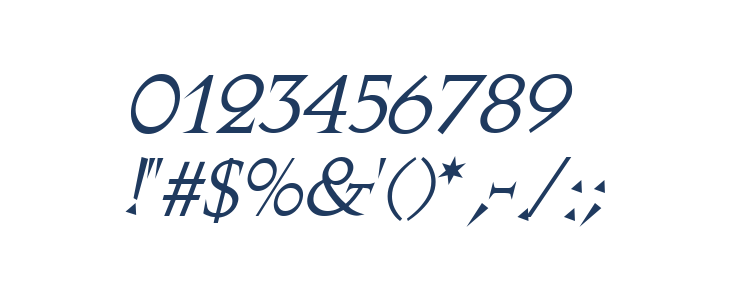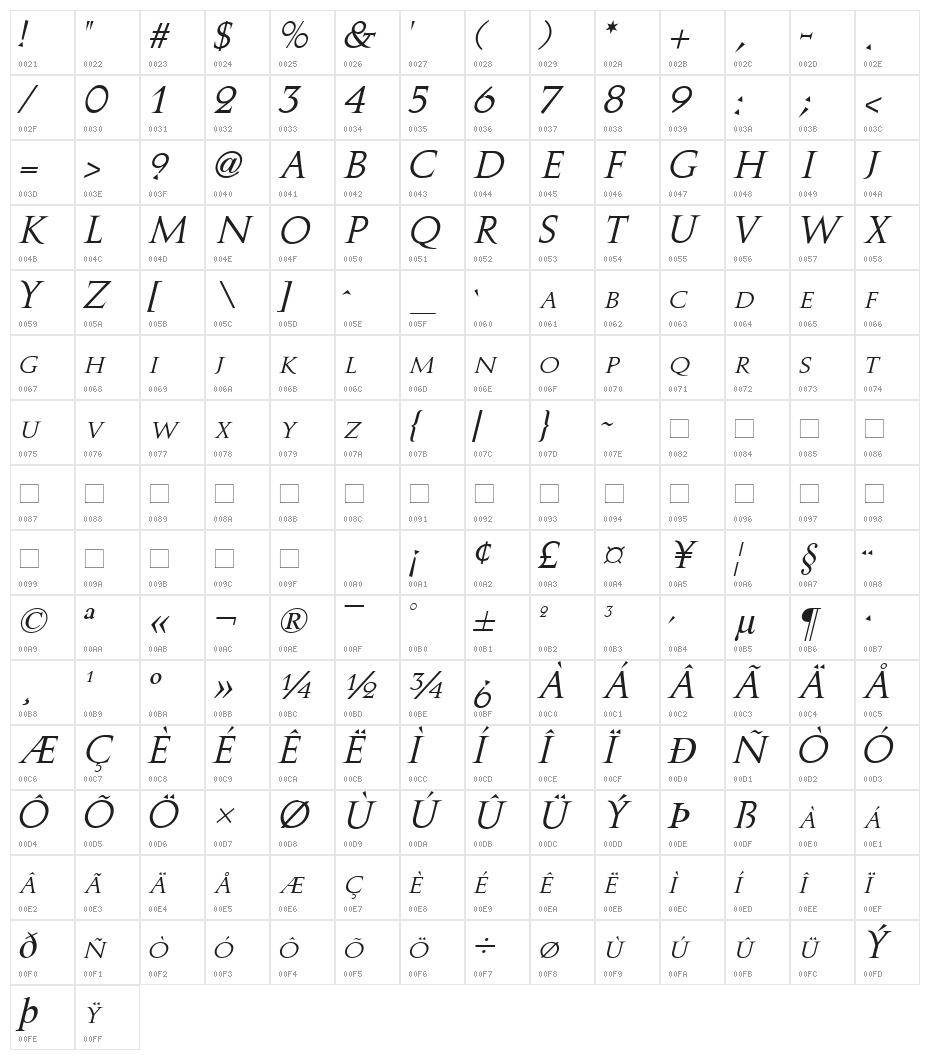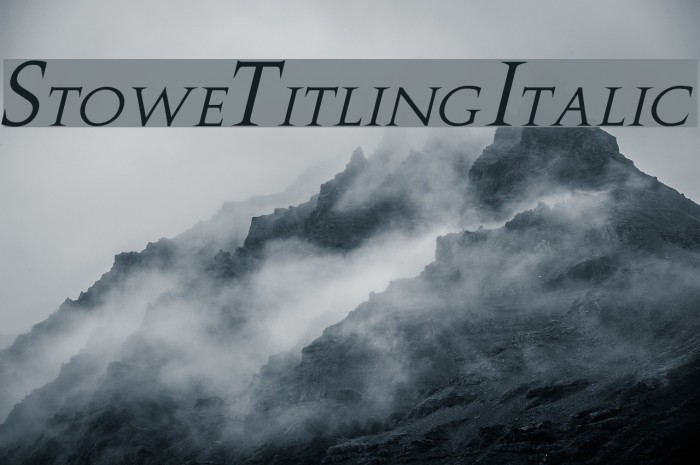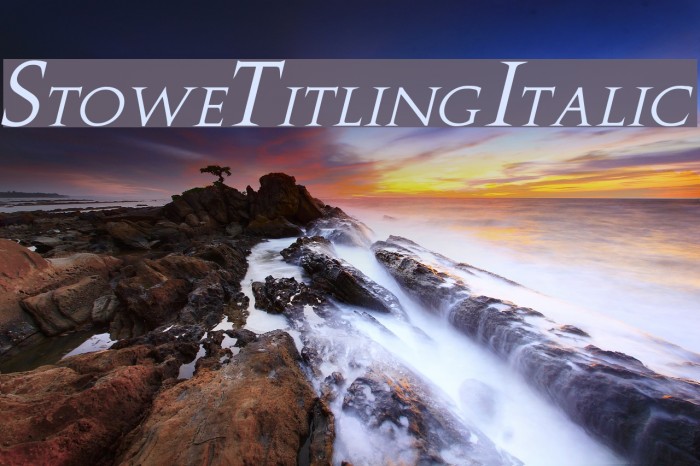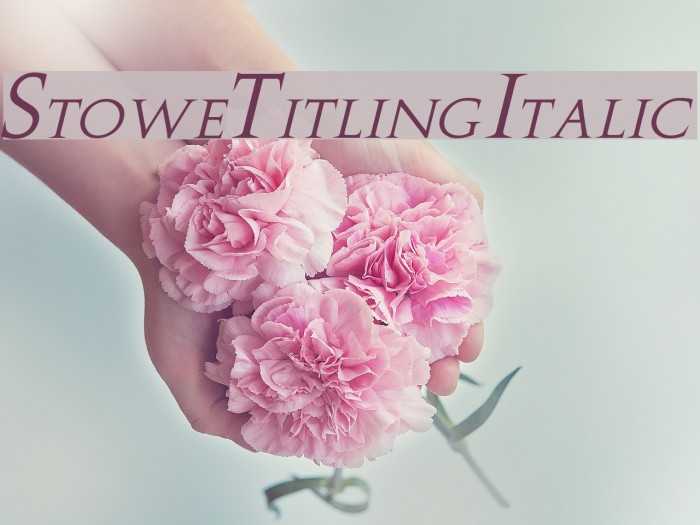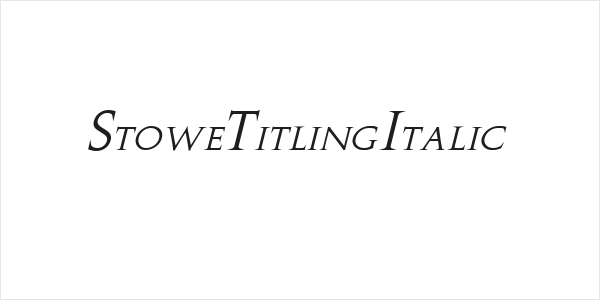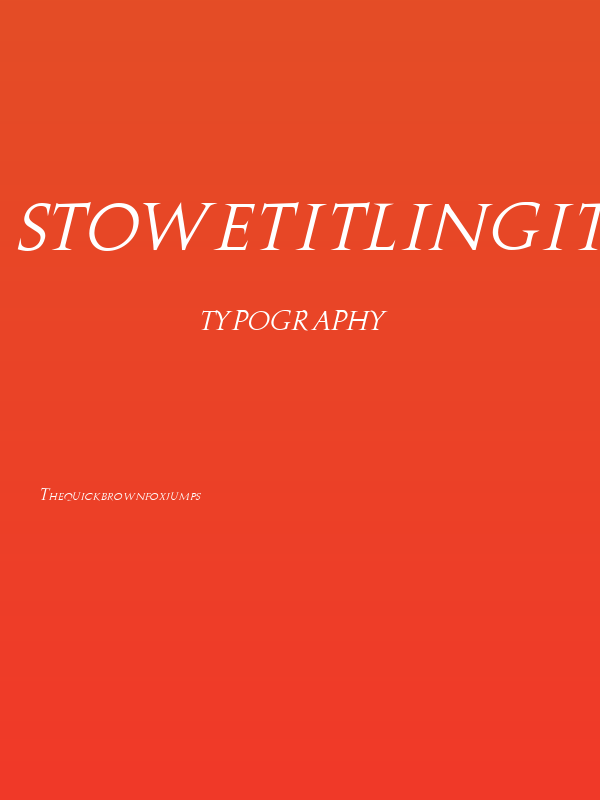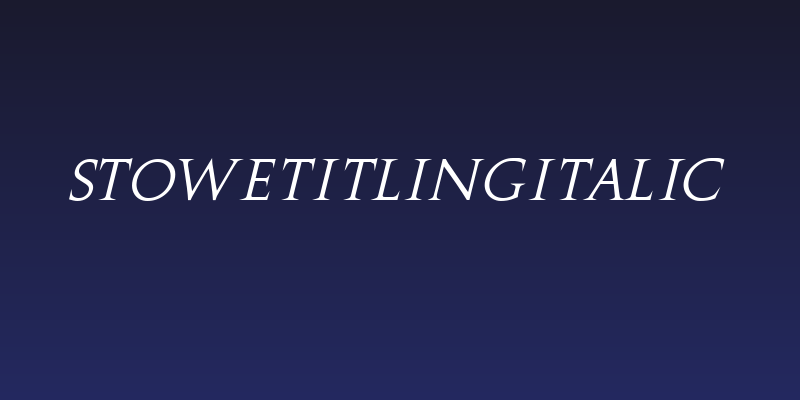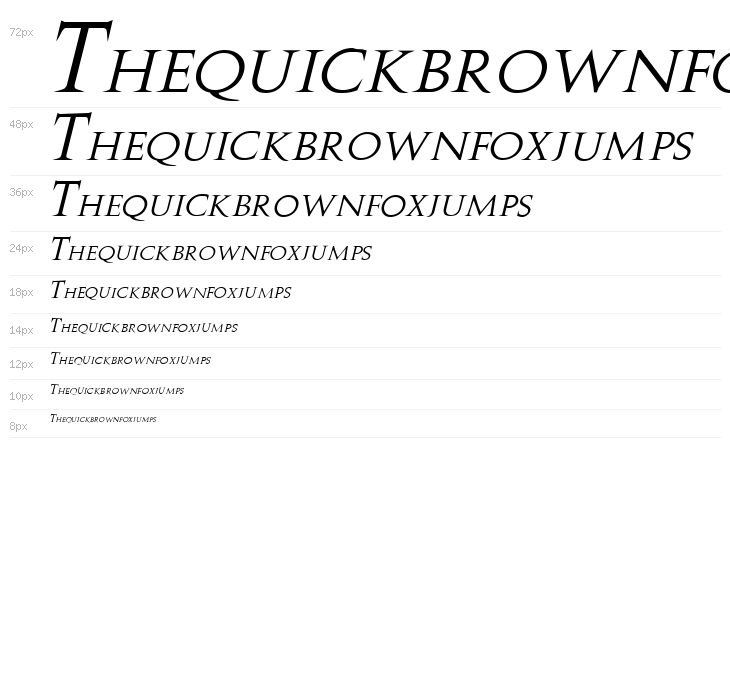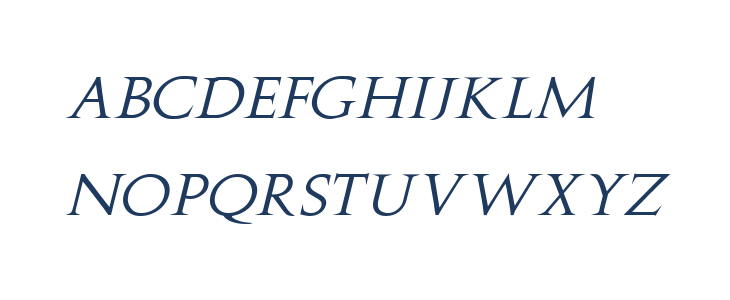
Stowe Titling Italic Font
Stowe Titling Italic Description
This font exudes a classic elegance with its italicized, serif style. The letters are gracefully slanted, giving a sense of motion and sophistication. The serifs are sharp and pronounced, adding a touch of formality and tradition. The numerals and special characters maintain the same elegant slant, ensuring consistency across all glyphs. The overall appearance is refined, making it suitable for high-end branding and editorial design. The contrast between thick and thin strokes is medium, providing a balanced and readable text.